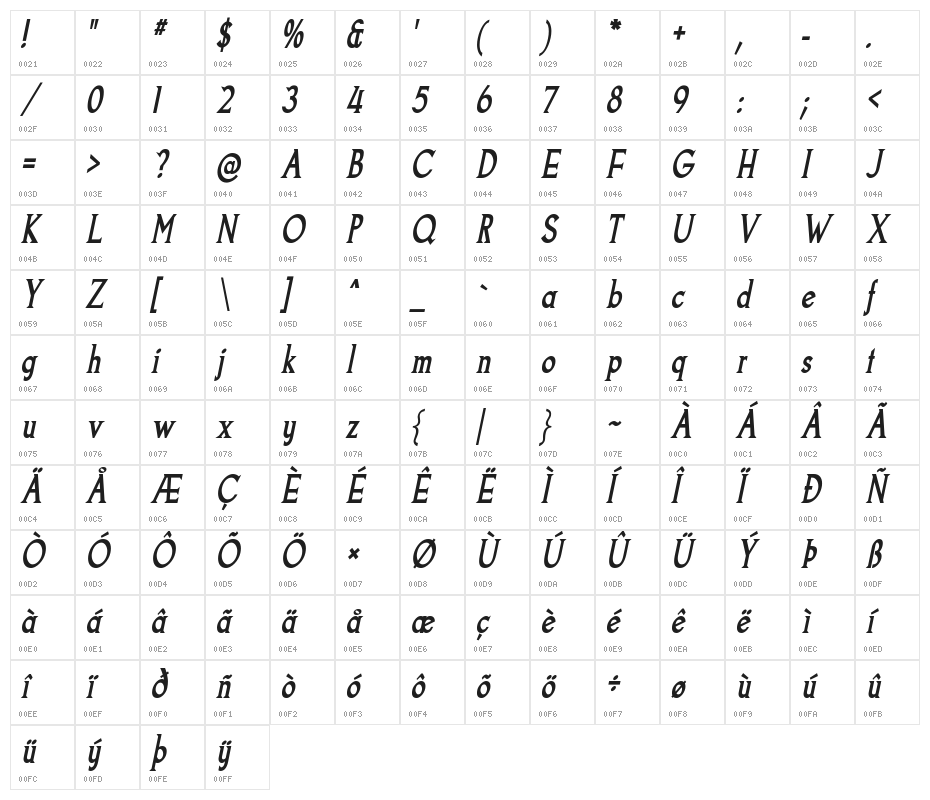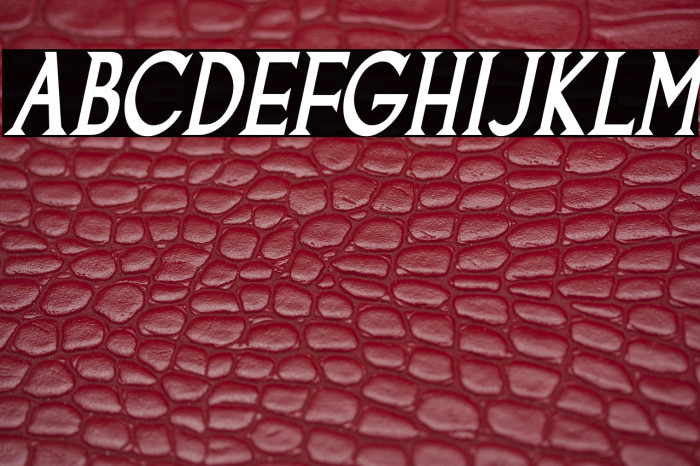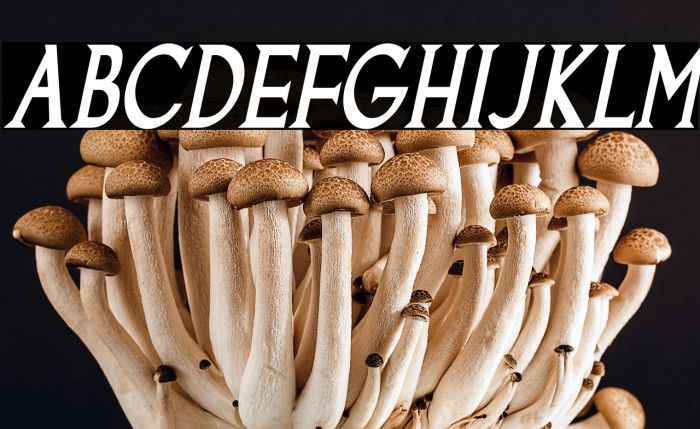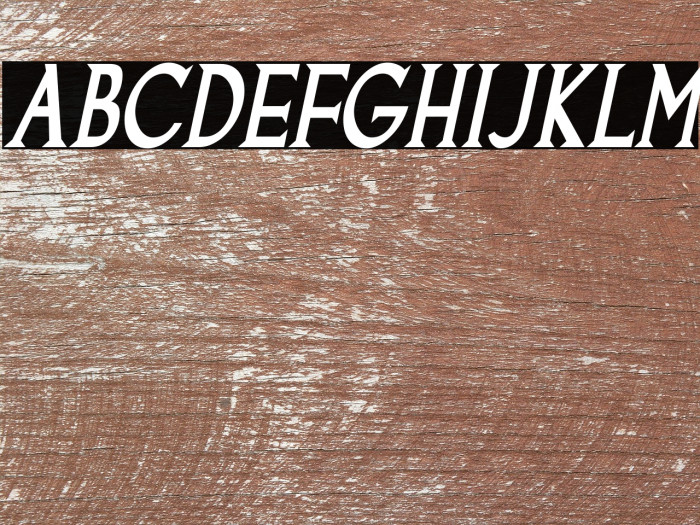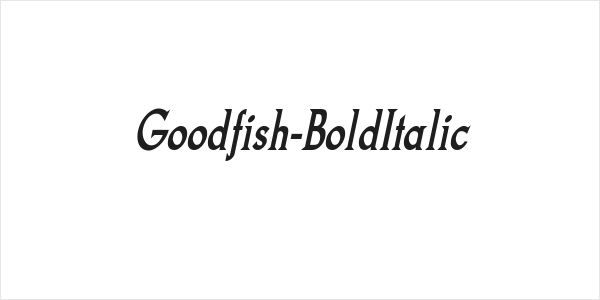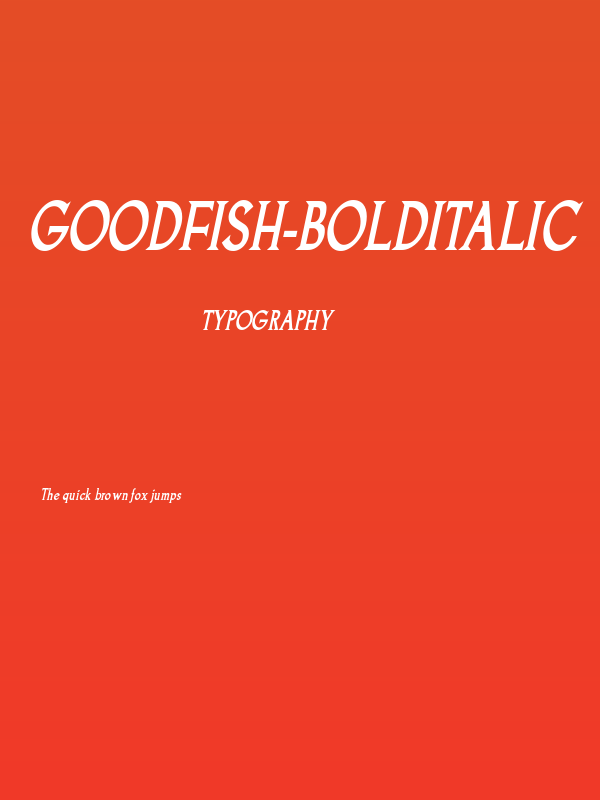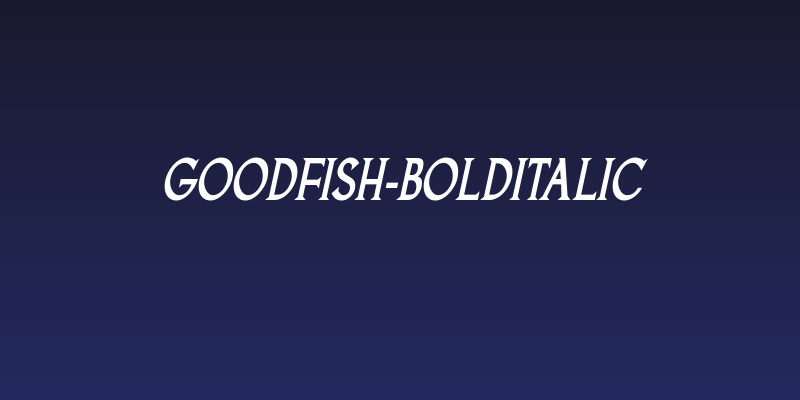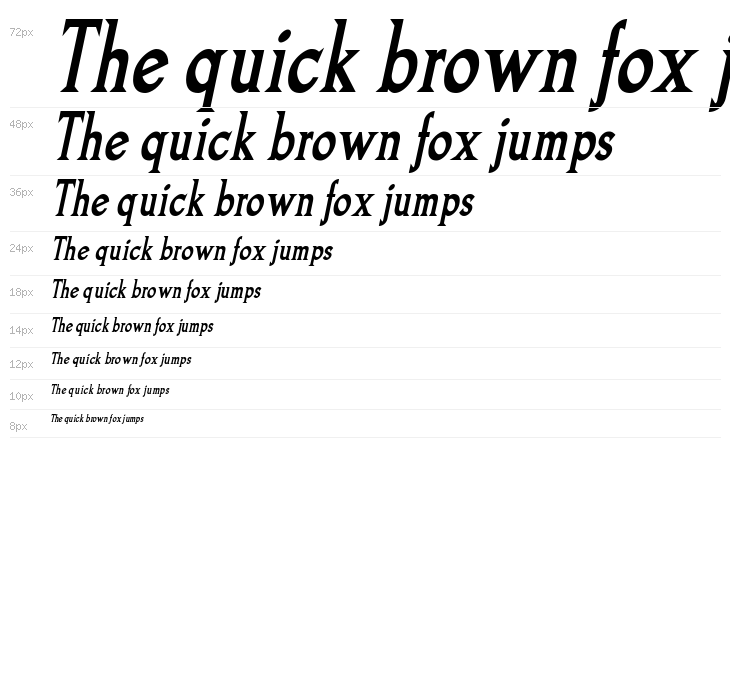
Goodfish-BoldItalic Font
Goodfish-BoldItalic Description
This font exhibits a bold and italicized style, characterized by its dynamic and slanted letterforms. The uppercase and lowercase letters maintain a consistent stroke weight, contributing to a cohesive appearance. The numerals are clear and legible, while the special characters are distinct and well-defined. The overall design is modern and expressive, making it suitable for attention-grabbing text. The italic slant adds a sense of movement and energy, enhancing its visual appeal.
| Proposed Projects | Ideal for branding, advertising, and editorial design where a bold statement is needed. |